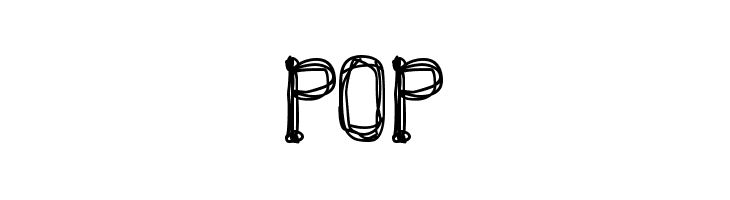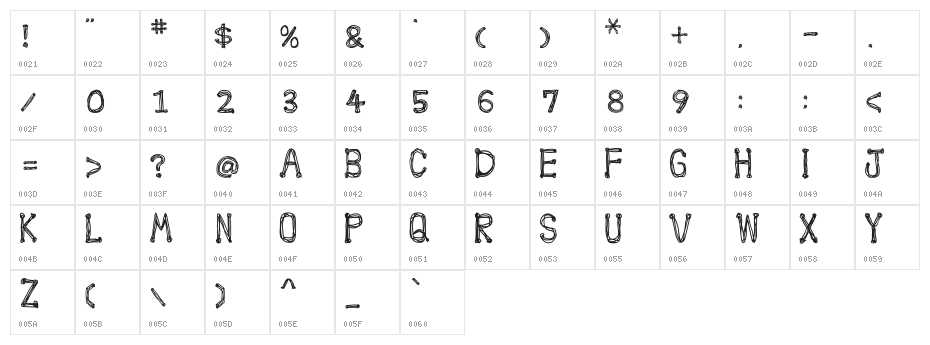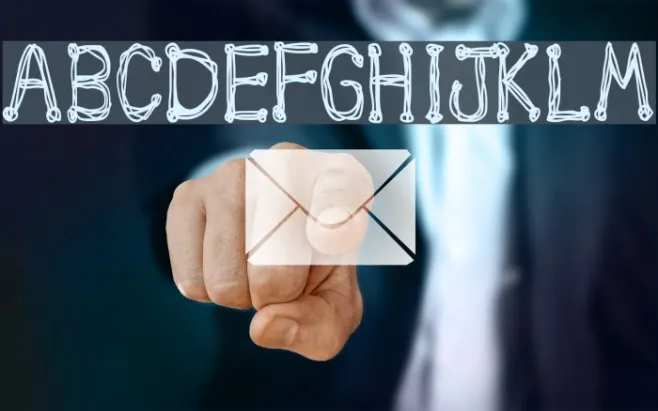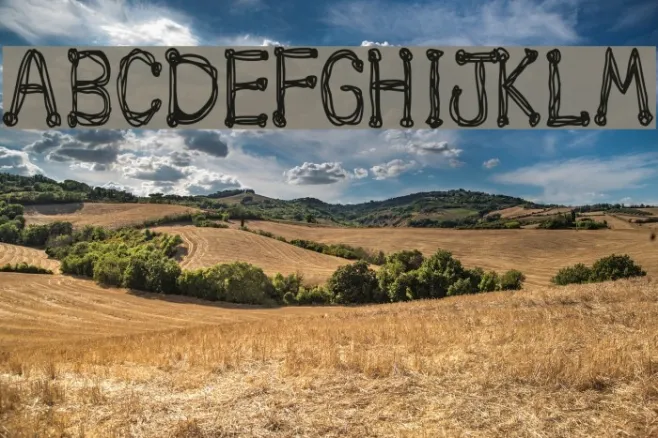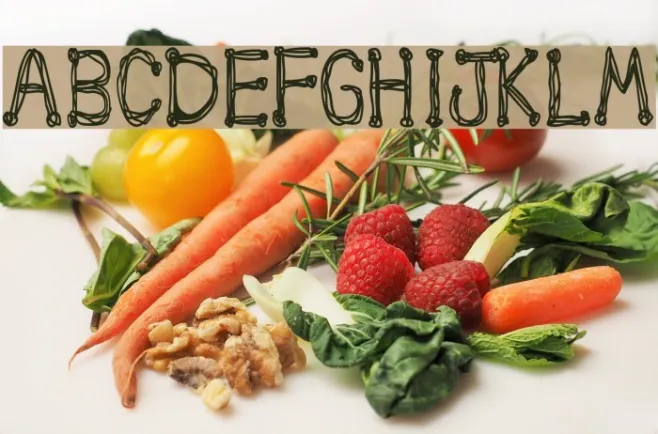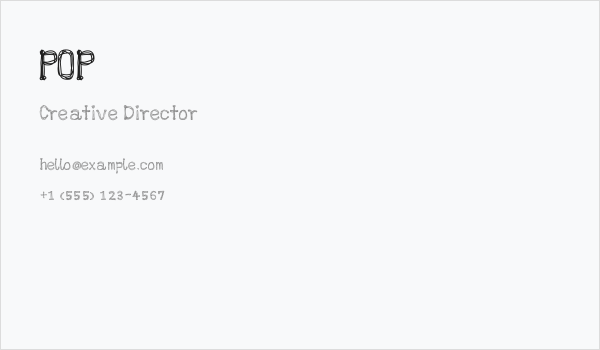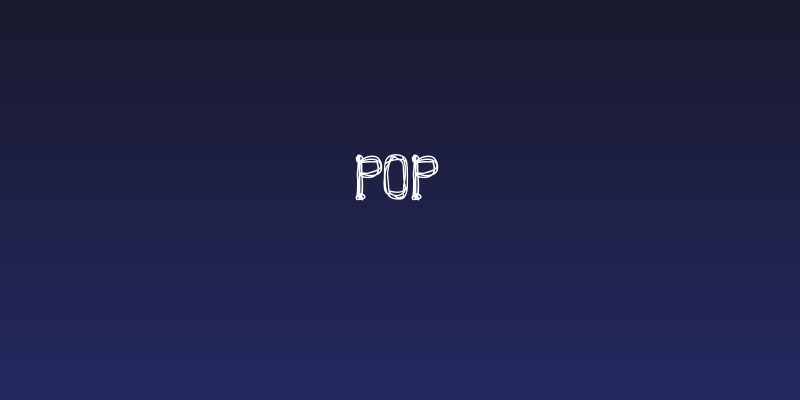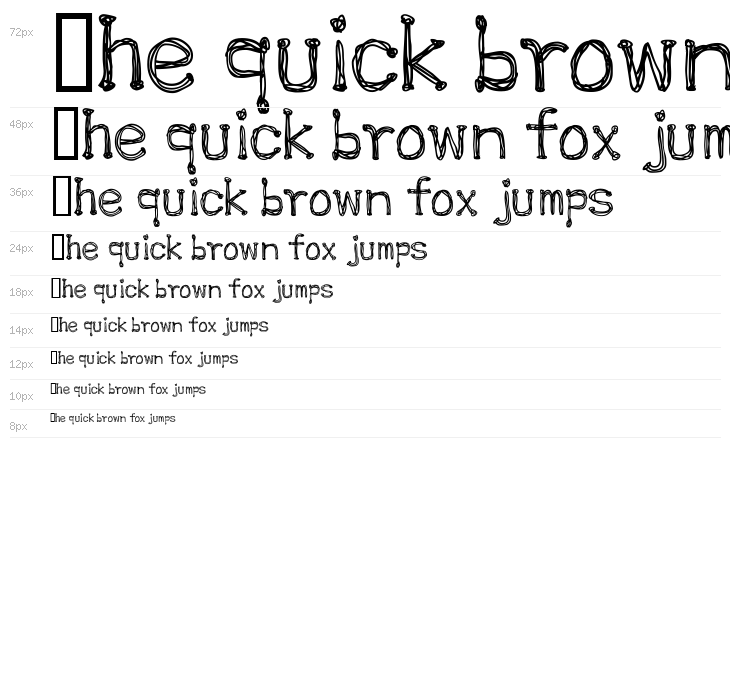
POP Font
POP Description
This font features a playful and artistic style, characterized by its hand-drawn appearance. Each letter is outlined with a bold, sketch-like quality, giving it a whimsical and informal look. The strokes are uneven, with varying thicknesses that add to its quirky charm. The characters are slightly irregular, enhancing the hand-crafted feel. This font is particularly suitable for creative projects that require a fun and casual aesthetic. Its unique style makes it stand out, perfect for designs that aim to capture attention with a touch of humor and creativity.
| Proposed Projects | Ideal for children's book covers, playful posters, creative branding, and informal invitations. |